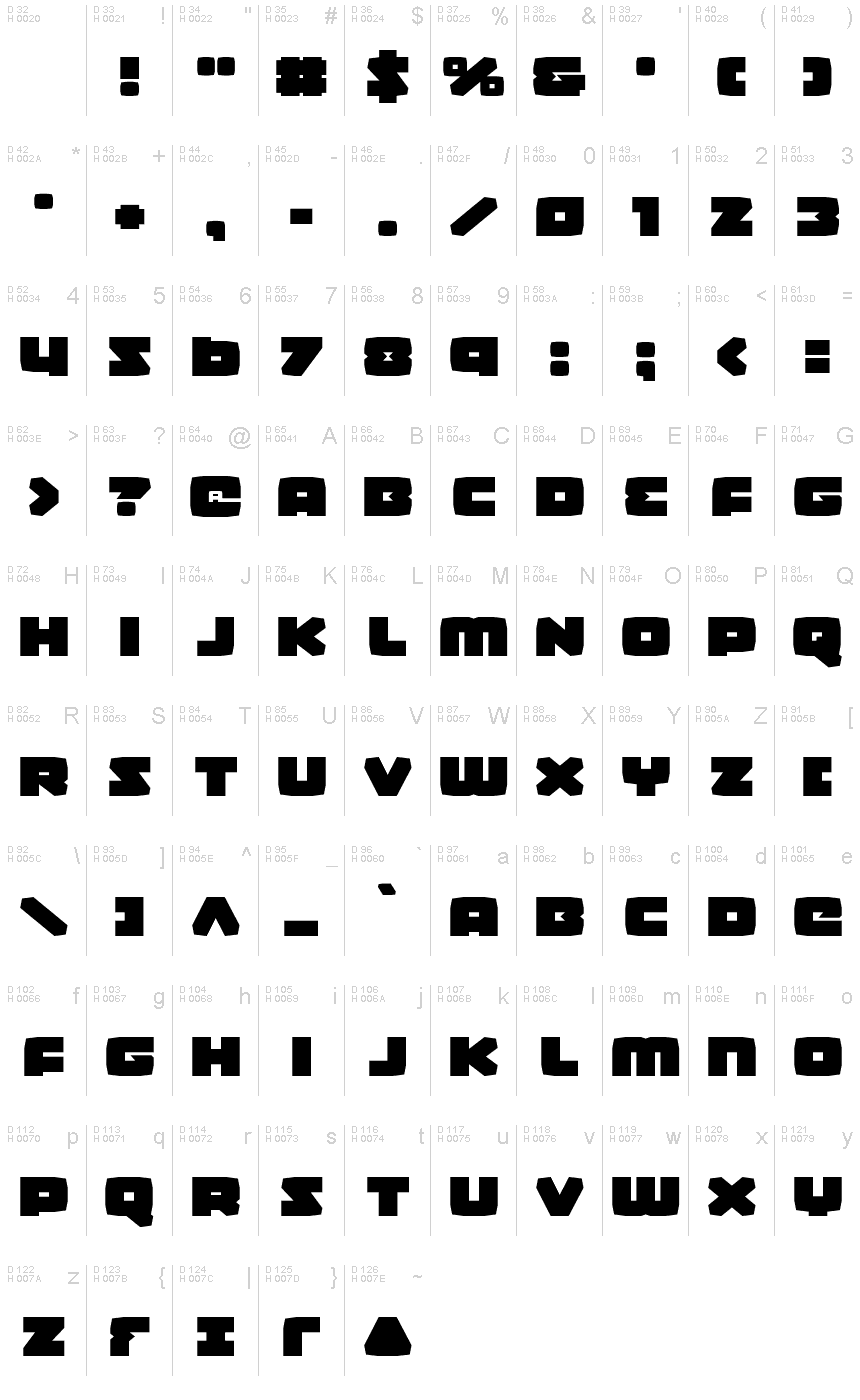
Gamer Spot Expanded
Looking for a bold and powerful display font to elevate your next project? Look no further than Gamer Spot Expanded. This ultra-bold, extra-expanded typeface boasts a futuristic techno style that's perfect for any gaming, tech or sci-fi related project. Created by Iconian Fonts, this attention-grabbing font is sure to make your headlines, posters and branding stand out from the crowd. From video game titles to EDM flyers, Gamer Spot Expanded is the ultimate choice for anyone looking to add an extra dose of excitement and energy to their design work.